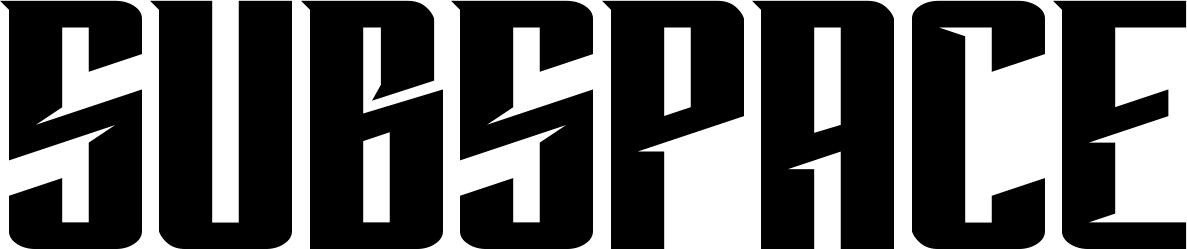
Subspace Font
When it comes to technology and communication, sci-fi fonts can be a perfect choice. Subspace is available in 4 different versions. Pick the one you fancy and apply it to posters, logos, products, and any text-based layout you’ve considered. Keep in mind that lowercase letters are not included. Need more slanted bold fonts? Head over to Resource Boy and let your dreams come true.
Subspace is a bold, stylized face based on the early logo for CBS/Paramount’s 2017 Star Trek television series. Includes full alphabet, numerics, and extended punctuation. Includes regular, italic, bold, and bold-italic weights.